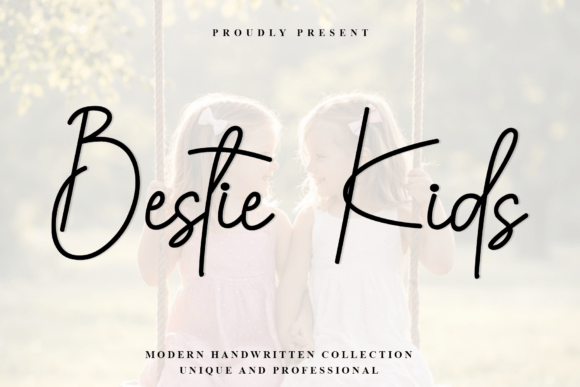
The Bestie Kids Font: A Breath of Fresh Air for Your Designs
I’ll never forget the time I was working on a branding project for an outdoor gear company. I had spent hours pouring over design concepts, but something felt off. The fonts I was using were either too bold, too bland, or just plain boring. That’s when I stumbled upon the Bestie Kids font, and it was like a mountain breeze swept through my design studio, refreshing and revitalizing my entire project.
• ✨ The clean and approachable style of Bestie Kids makes it perfect for a wide range of design applications, from travel photography to sophisticated web design.
• ✅ The tall, thin strokes with a subtle, airy slant give the font a refined aesthetic that’s both elegant and modern.
• 💡 The font’s unique and professional design makes it stand out from more traditional handwritten fonts.
While Bestie Kids is an amazing font, there are a few things to keep in mind:
• ⚠️ The font’s thin strokes can be a bit finicky when used in certain contexts, such as small sizes or bold colors. Make sure to test it thoroughly in your design.
• 🤔 Some users may find the font’s subtle slant a bit tricky to work with, especially when pairing it with other fonts.
The Story Behind Bestie Kids
Bestie Kids was designed with the modern creative in mind. The font’s creator wanted to craft a font that was both unique and professional, with a clean and approachable style that would work well in a wide range of design applications. Inspired by the beauty of the great outdoors, Bestie Kids is a font that’s sure to bring a touch of elegance and sophistication to any design.
Q: What is the Bestie Kids font?
A: Bestie Kids is a modern handwritten font designed to evoke a sense of clarity and crisp elegance.
Q: What is Bestie Kids font used for?
A: Bestie Kids is ideal for travel photography, branding for outdoor gear, and sophisticated web design.
Q: Is Bestie Kids easy to read?
A: Yes, Bestie Kids is a clean and approachable font that is easy to read, even at small sizes.